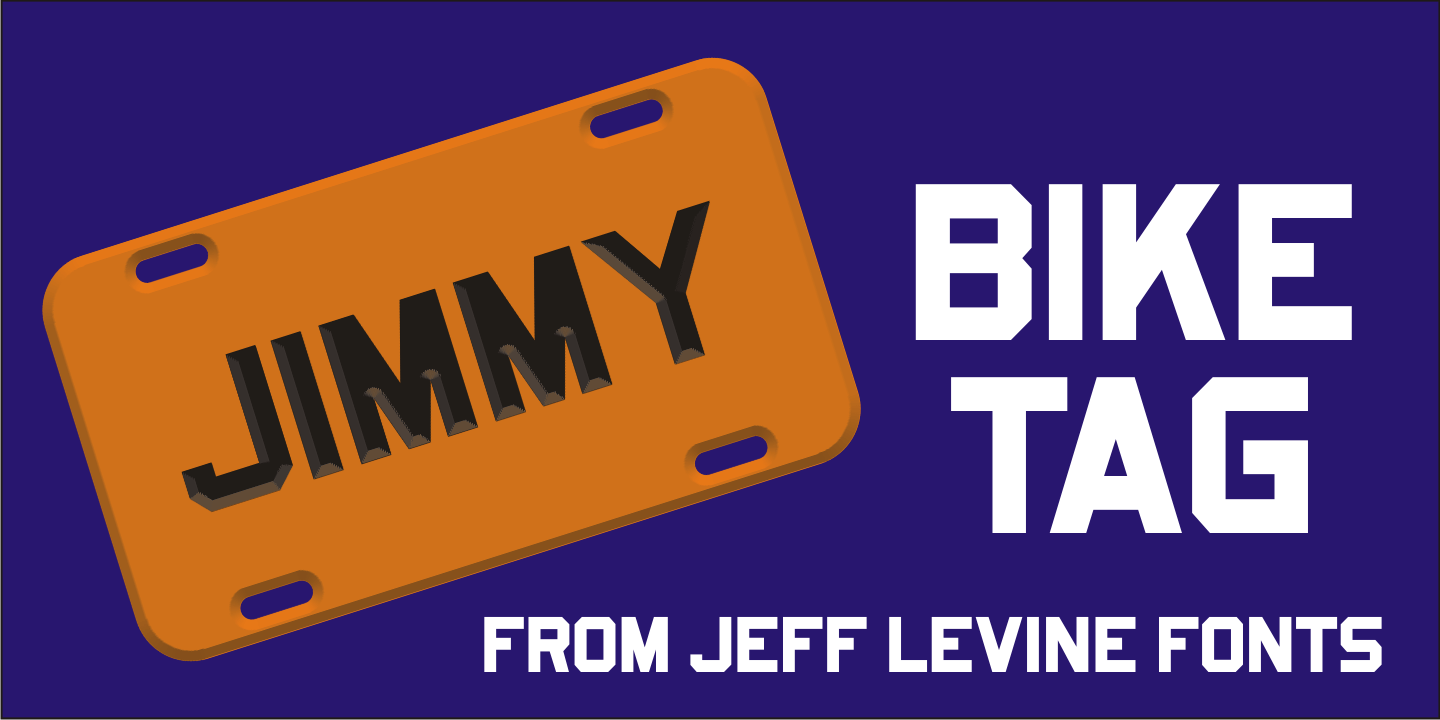
Bike Tag
There are many interesting items for sale online, and when one catches the eye of a typographic designer, another digital font gets created.
The simple, chamfered lettering of Bike Tag JNL was based on a 1950s-era metal bicycle tag with self-adhesive letters that kids could customize with their name or any short words.